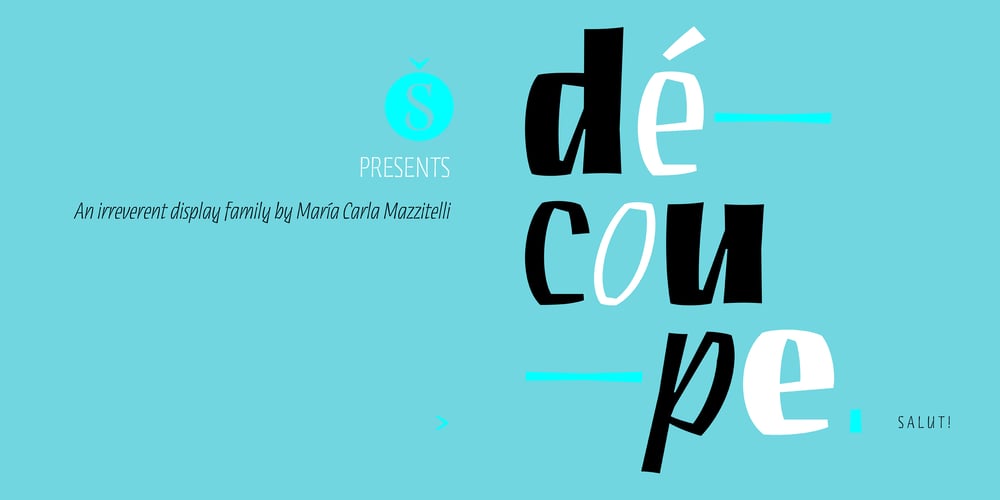
Découpe Font Family was designed by María Carla Mazzitelli and published by Sudtipos. Découpe contains 8 styles and family package options. Sudtipos is proud to announce the release of Découpe, a display typeface program of eight fonts, designed by María Carla Mazzitelli and born during her Masters in Typography at the University of Buenos Aires (FADU-UBA). Inspired by gestural graphic expressions –like paper cut-outs (découpes) and spontaneous handwriting– from the most diverse postmodern and contemporaneous artists of the design world, Découpe has been created specifically to be used in big sizes. A little bit irreverent and effervescent from time to time, this gestural sans serif family reveals its contrasts and asymmetrical shapes when it breaks through display functions. From Light to Extra Bold, it reaches the most extreme weights, looking for power and impact. This program is meant to catch the eye in typographic compositions, to shout it out loud and clear. Definitely, to be seen. *Découpe has been recently selected to be part of different typography exhibitions such as Tipos Latinos and the Type Directors Club.